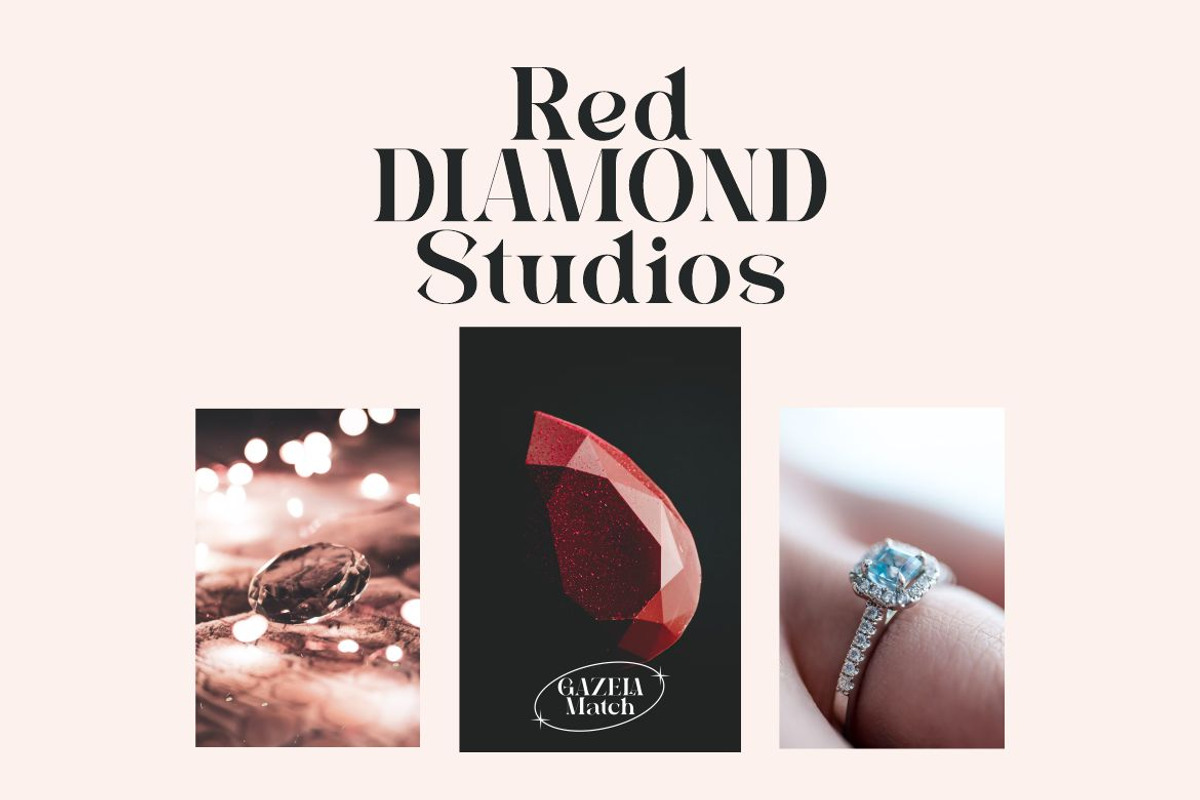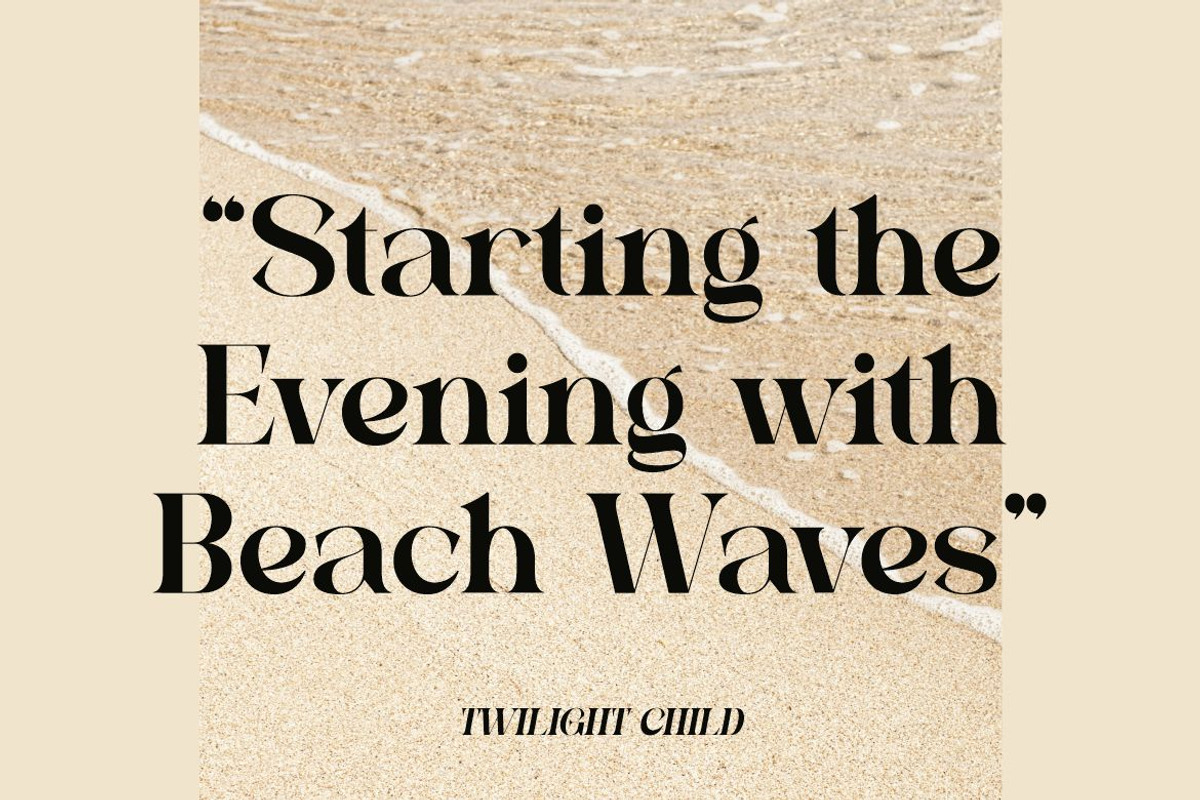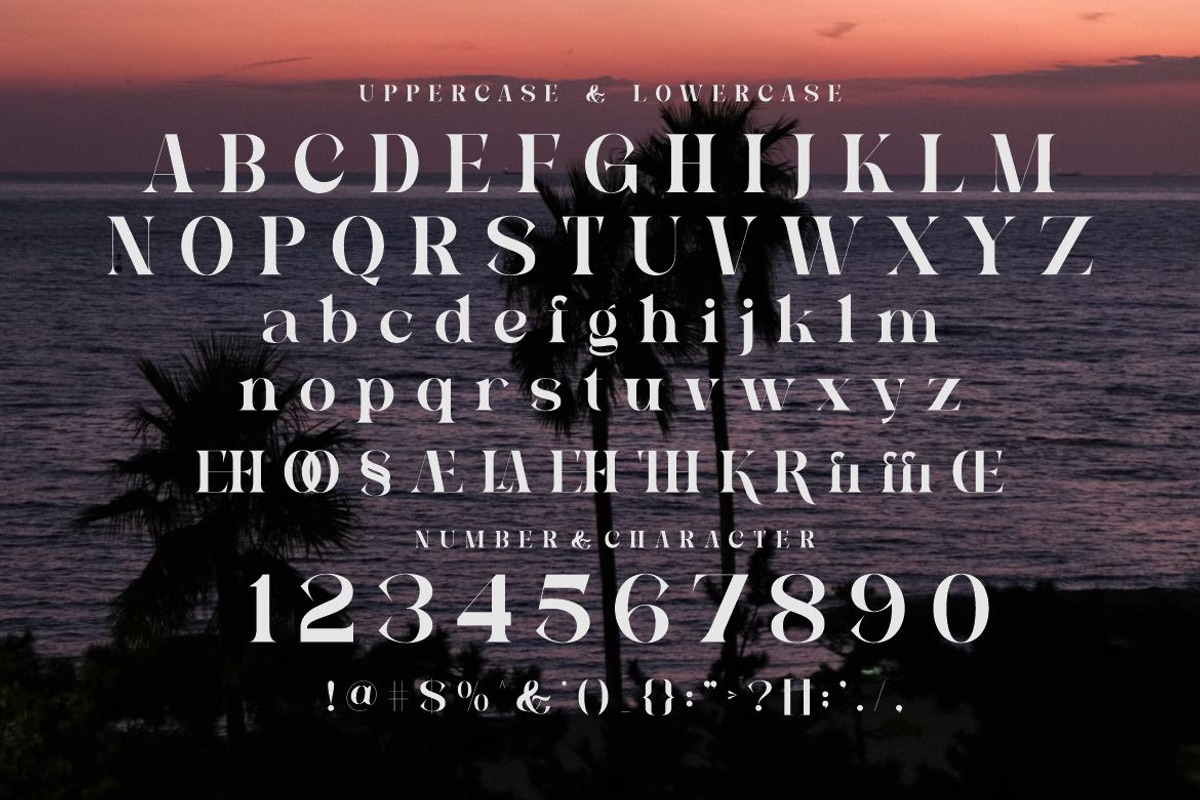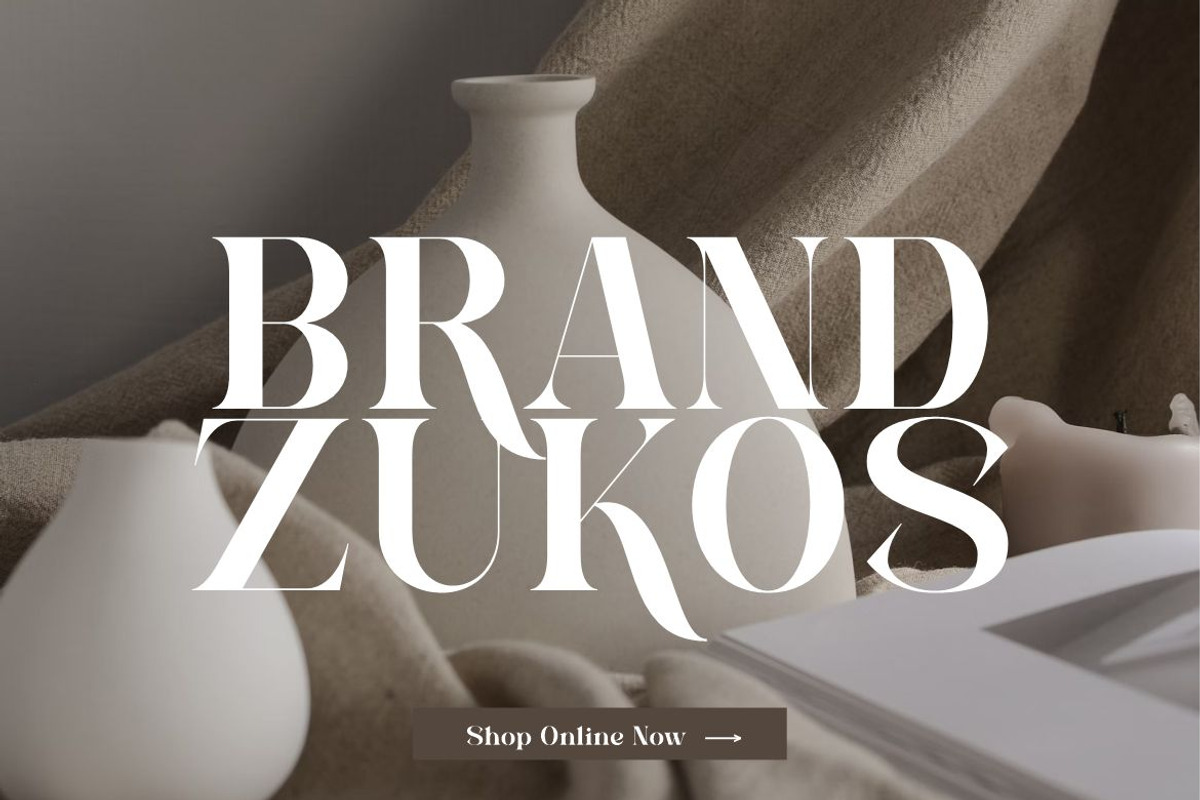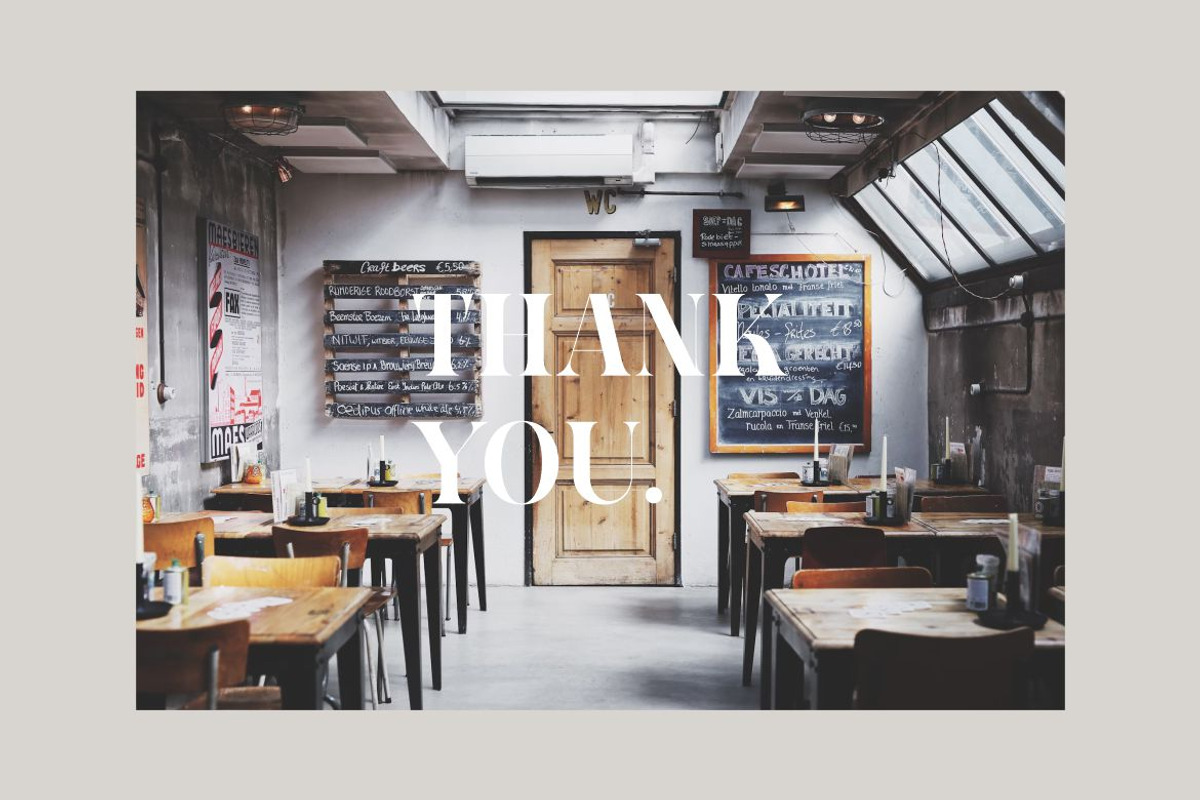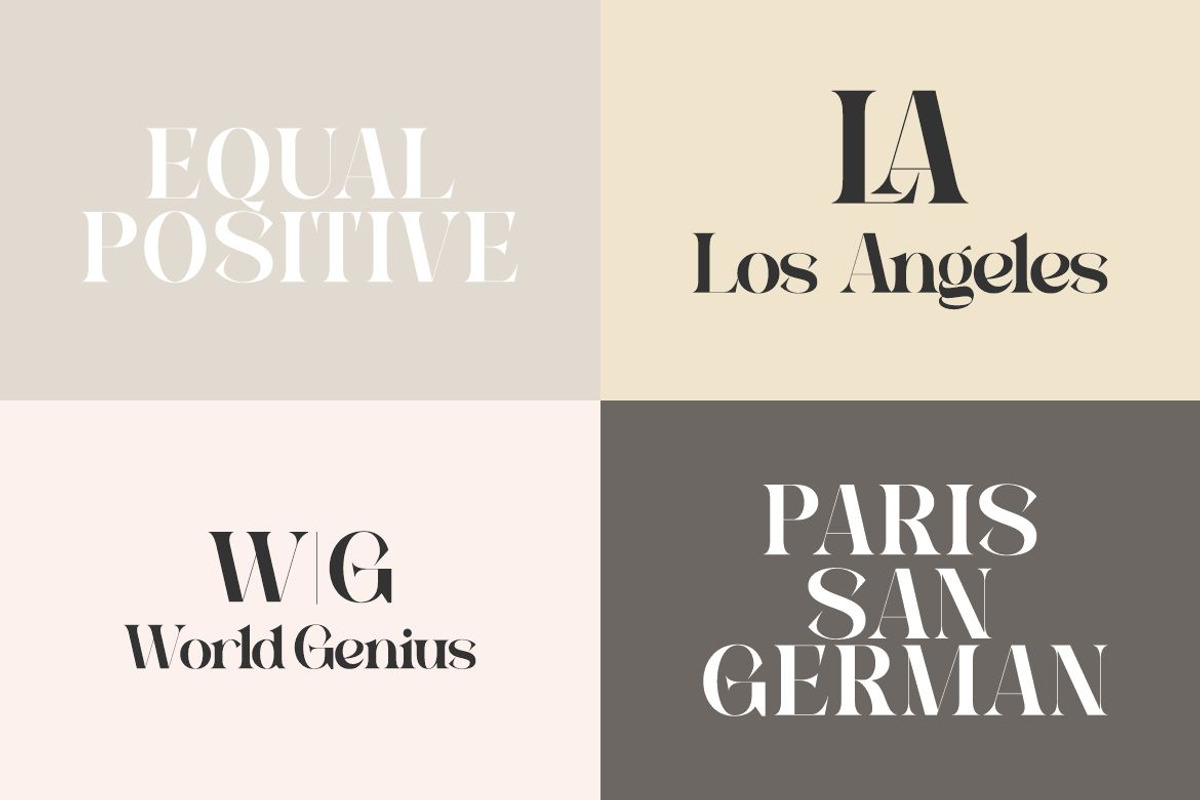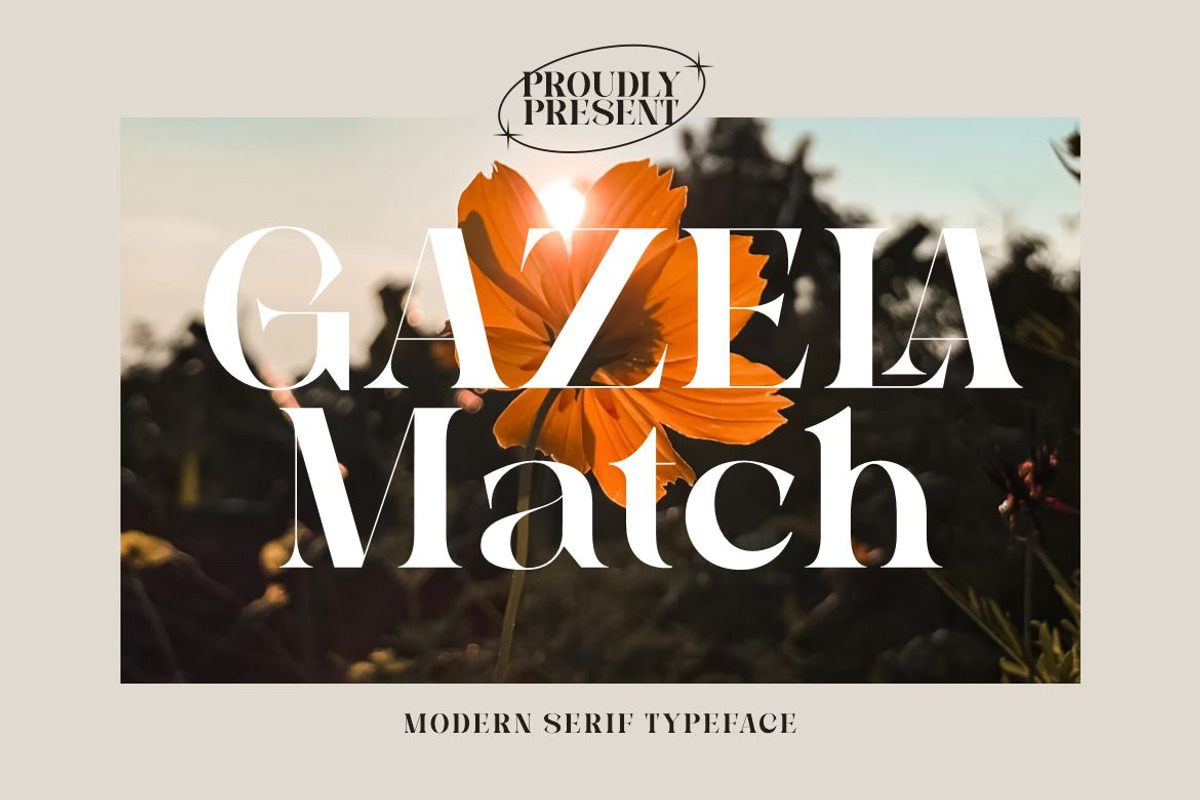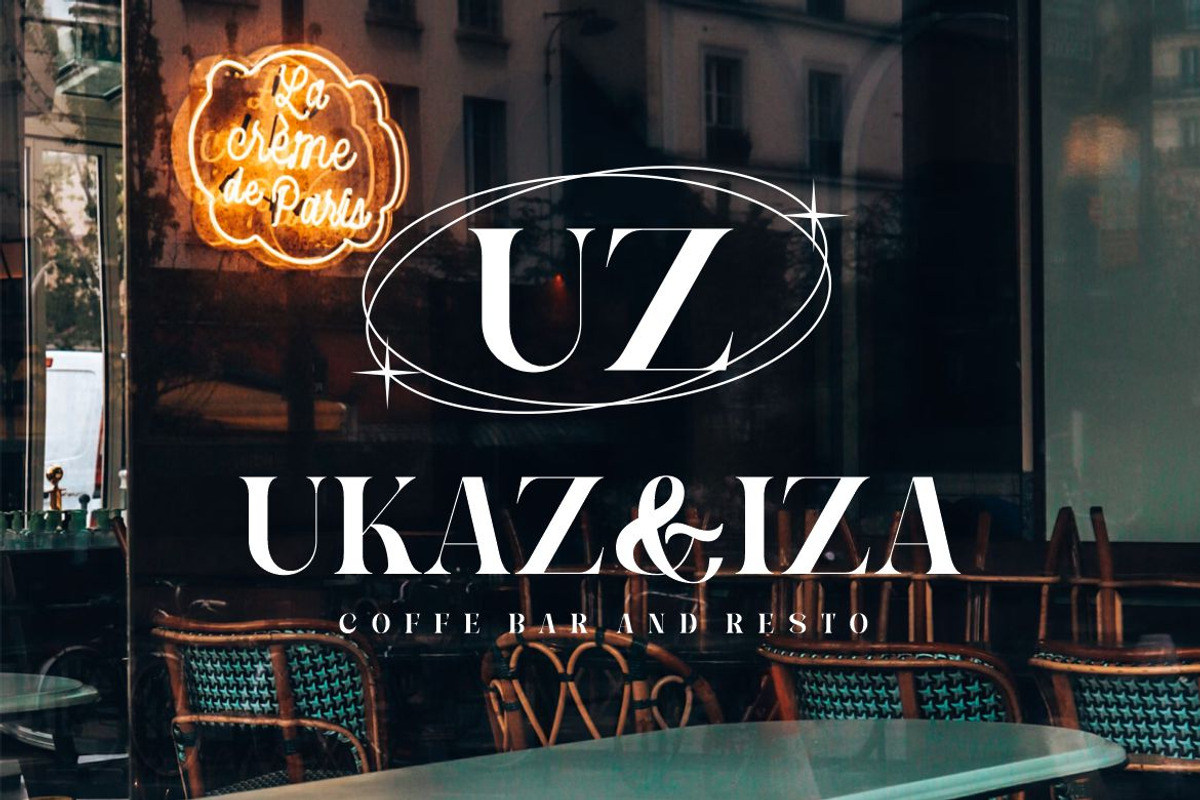
Gazela Match
Gazela Match is a Bold Minimalist Elegant Modern vintage font with beautiful ligatures, tons of special alternative glyphs, ornament and multilingual support. It's a very versatile font that works great in large and small sizes. Perfect for branding projects, Logo design, Clothing Branding, product packaging, magazine headers, or simply as a stylish text overlay to any background image.